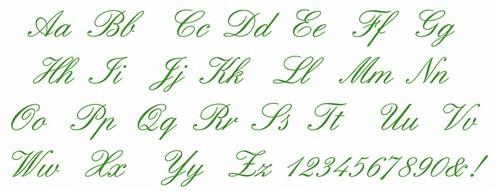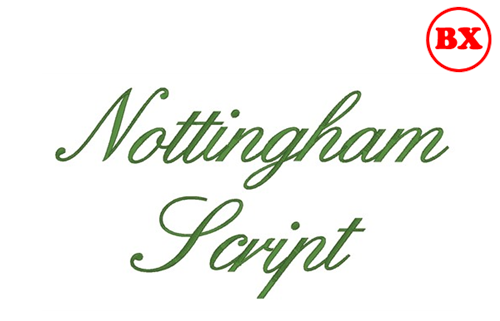
Easy Embroidery is happy to present Nottingham Script Embrilliance machine embroidery font which has Flowing script machine embroidery font ideal for adding a personalized touch to home decor or gifts. This design features connected letters with distinct flourishes. Available in BX font and other Embrilliance formats. included. If you would like to view more embroidery fonts and alphabets please search our embroidery fonts page.